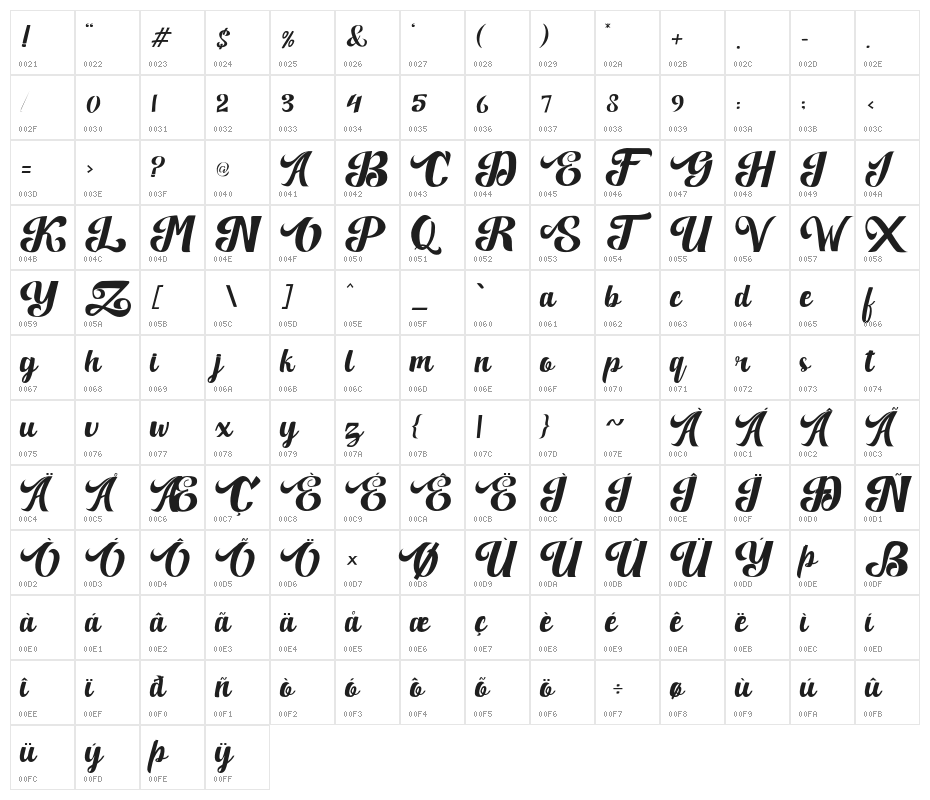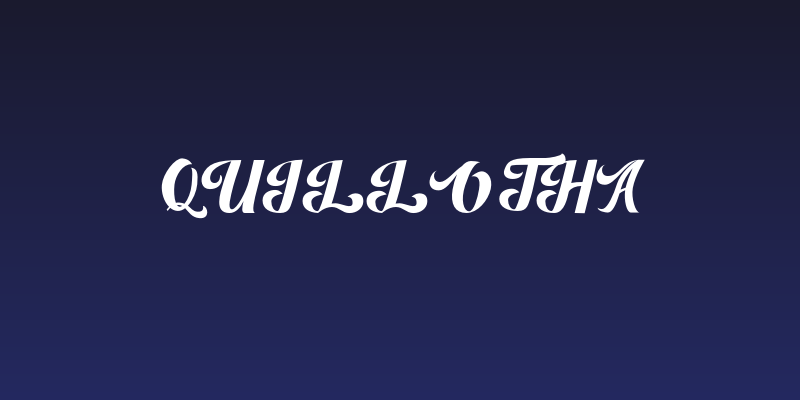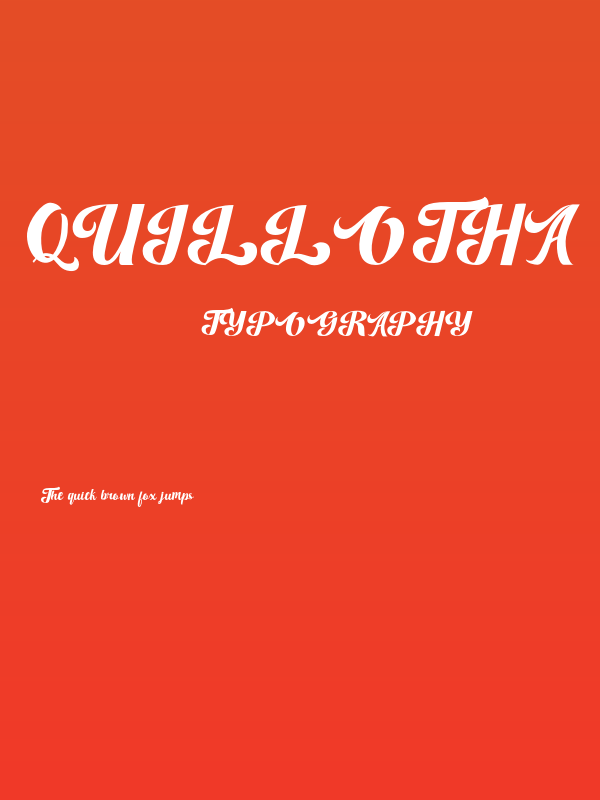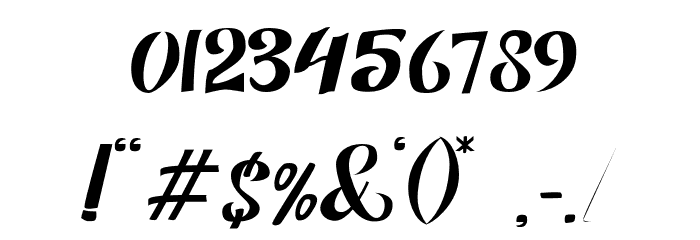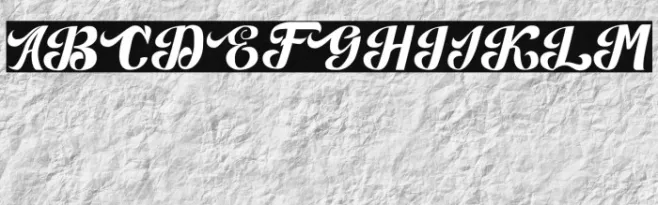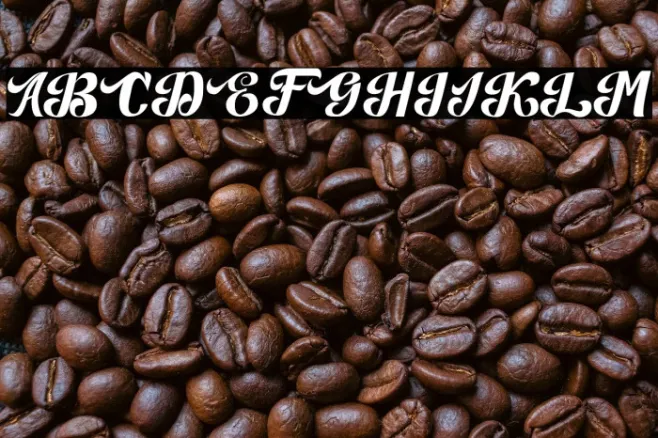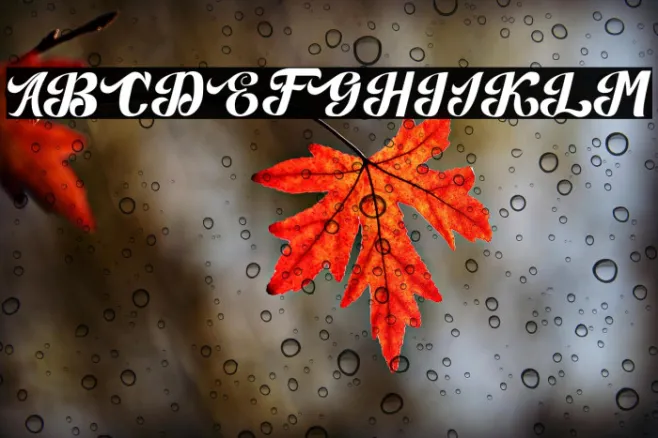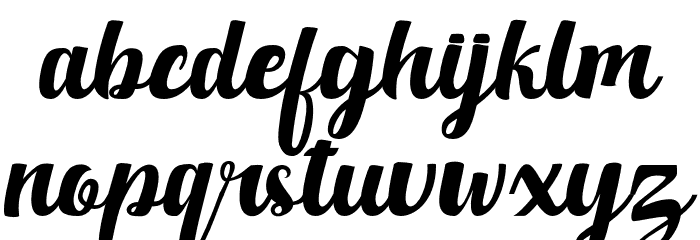
Quillotha Font
Quillotha Description
This font features a bold and expressive script style, characterized by its flowing, cursive letterforms. The uppercase letters are ornate with elegant swashes, while the lowercase letters maintain a consistent, smooth flow. The numerals are distinct and bold, matching the overall aesthetic of the alphabet. Special characters are creatively integrated, maintaining the script's decorative flair. The font's design is both dynamic and sophisticated, making it suitable for various creative applications.